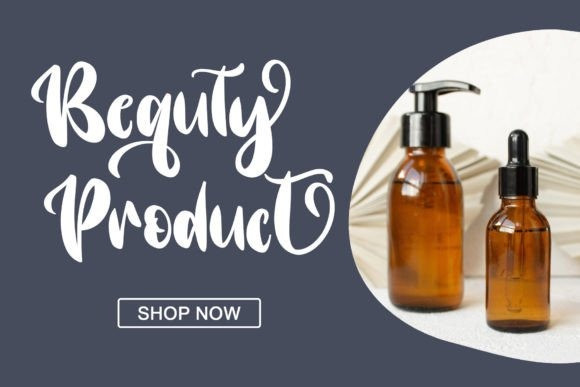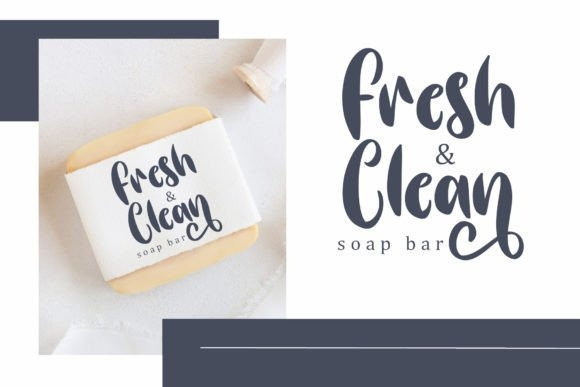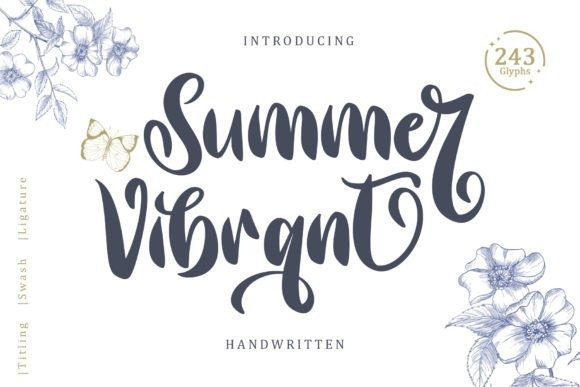
Summer Vibrant Font
Summer Vibrant Font is an exquisite handwritten font, masterfully designed to become a true favorite. It maintains its classy calligraphic influences while feeling contemporary and fresh. Fall in love with it and bring your projects to the highest levels!